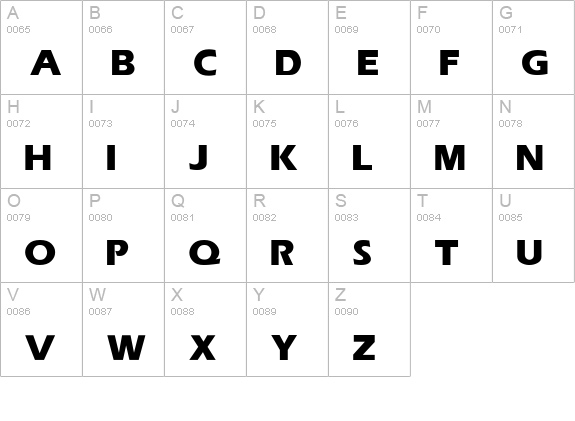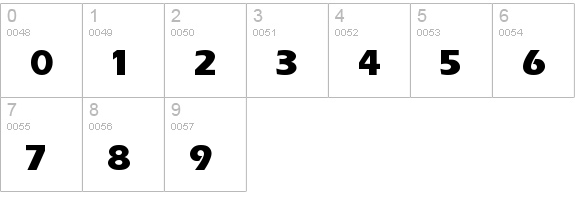
Tili-Bold Font Details
Tili-Bold is a strong, high-contrast variant in the Tili typeface family \xE2\x80\x94 well suited to headlines, attention-grabbing titles, and strong calls-to-action.
Introducing Tili-Bold font, a stunning typeface that exudes power, elegance, and creativity. With its bold and confident appearance, Tili-Bold is the perfect choice for captivating headlines, attention-grabbing logos, and impactful designs. This highly versatile font boasts a unique combination of strong lines and delicate curves, creating a harmonious balance that effortlessly catches the eye. Its distinct and modern design makes Tili-Bold an ideal choice for a wide range of projects, from branding and advertising to web design and editorial layouts. What sets Tili-Bold apart is not only its exceptional aesthetics but also its accessibility. Recognizing the importance of making great design available to all, Tili-Bold is freely available to download at FontsMarket.com. This means that designers, creatives, and enthusiasts alike can easily access this remarkable font without any restrictions. Whether you're a professional designer looking to make a bold statement or a hobbyist seeking to elevate your creative projects, Tili-Bold is here to empower your imagination. Let this captivating font unleash your design potential and bring your ideas to life. Download Tili-Bold today at FontsMarket.com and experience the freedom to create stunning designs with this extraordinary font.